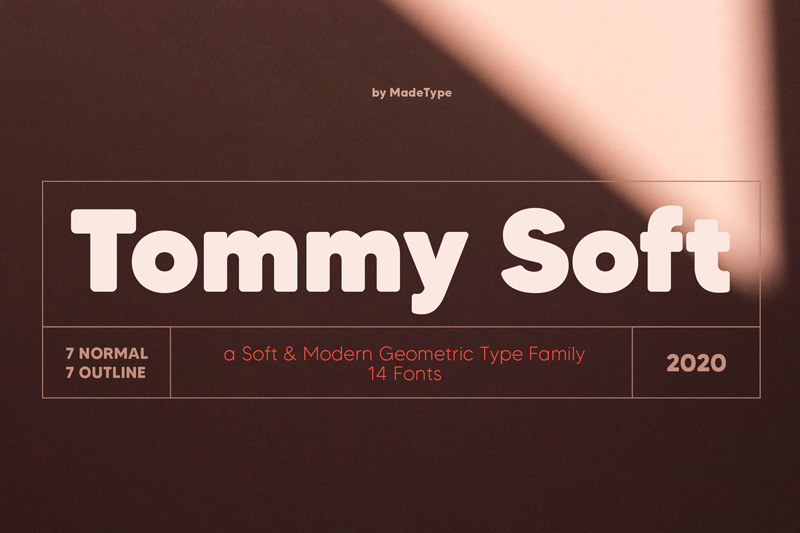
MADE Tommy Soft is a Soft & Modern Geometric type family. The Tommy Soft type family includes: 7 normal and 7 outline soft style. MADE Tommy Soft will perfect for many project: fashion, magazines, logo, branding, photography, invitations, wedding invitation, quotes, blog header, poster, advertisements, postcard, book, websites, etc. Font is FREE for PERSONAL USE. Contact me mail for commercial use and questions: madetypeinfo@gmail.com ----- FOR PERSONAL AND COMMERCIAL WORK https://www.fontspring.com/fonts/madetype https://creativemarket.com/MadeType https://www.youworkforthem.com/designer/1002/madetype/ https://crella.net/store/madetype/ ----- https://www.behance.net/madetype Email for questions: madetypeinfo@gmail.com |